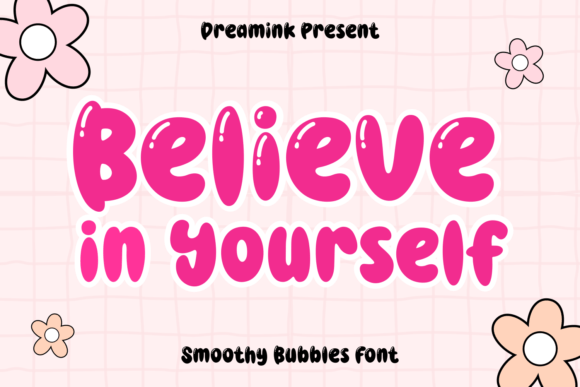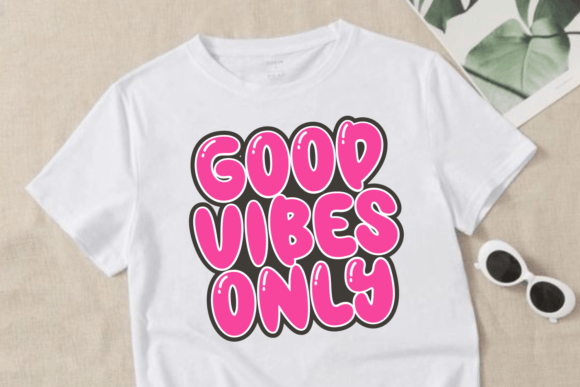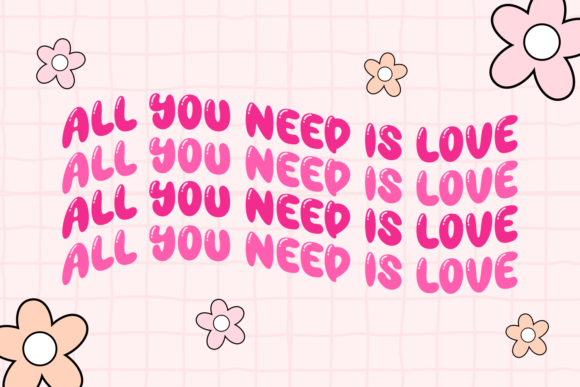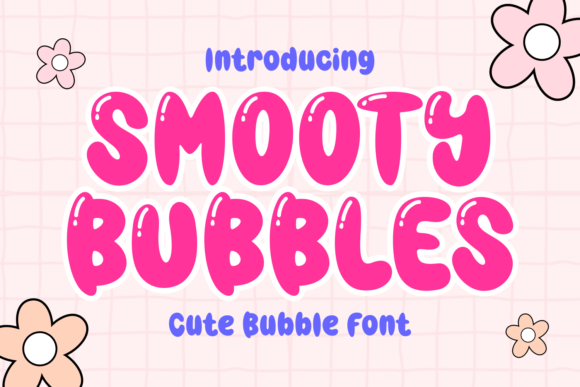
Introduction to Smooty Bubbles Font
Meet Smooty Bubbles, the font that’s as adorable as bubbles themselves.
With its cute and playful design, this bubbly font adds a touch of whimsy to any project Perfect for a variety of uses, Smooty Bubbles is a delightful choice for creating a fun and lighthearted atmosphere.
Key Features of Smooty Bubbles Font
Why Choose Smooty Bubbles Font?
Smooty Bubbles Font offers exceptional quality and versatility, making it a valuable addition to your design toolkit. Whether you’re creating for personal projects or commercial use, Smooty Bubbles Font delivers professional results.